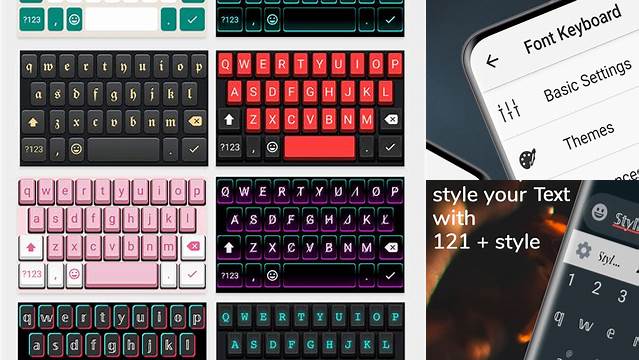
Fonts Keyboard: APK For Unique Writing Styles
Hey guys! Ever wanted to spice up your texts and social media posts with some cool and unique fonts? Well, you're in the right place! We're diving deep into the world of fonts keyboard apps, especially those APK files that let you get special fonts on your phone. Let’s get started and make your text game strong!
1. What is a Fonts Keyboard APK?
So, what exactly is a fonts keyboard APK? Simply put, it’s an application package file (APK) that you can install on your Android device to get a keyboard with a ton of different fonts. These apps let you type in various styles, from cursive and fancy to bold and quirky. Think of it as a magic wand for your words, allowing you to transform regular text into eye-catching masterpieces. You know, the kind of stuff that makes your Instagram captions pop and your WhatsApp messages stand out. The beauty of using a fonts keyboard lies in its versatility. You can use these special fonts across multiple platforms, whether it's social media, messaging apps, or even emails. It's like having a personal stylist for your text, ensuring that your words always make a statement. And let’s be honest, who doesn’t love a bit of flair? Especially when it's as easy as switching keyboards on your phone. Plus, with the right fonts keyboard, you can express your personality and mood in ways that regular text just can't capture. It’s all about adding that extra zing to your digital communication, making sure your messages not only convey information but also reflect your unique style. Whether you’re crafting a heartfelt birthday message or sharing a funny meme, a cool font can make all the difference.
2. Why Use Special Fonts?
Okay, so why bother with special fonts? Well, for starters, they add personality! Imagine your friend’s reaction when they see a birthday wish in a beautiful, handwritten-style font. It’s way more personal and memorable than plain old Arial, right? Using special fonts is like adding a splash of color to a black-and-white world. They grab attention and make your messages stand out in a sea of regular text. In a world where everyone is scrolling through endless feeds, a unique font can be the difference between your message being seen and being overlooked. Think about it – when you see a post with a cool, unusual font, you're more likely to stop and read it. It's human nature to be drawn to things that are visually appealing, and special fonts definitely fit the bill. But it's not just about aesthetics. Special fonts can also help you convey emotions and tone more effectively. A playful font can add a touch of humor to your messages, while an elegant script can make your words feel more sophisticated. It’s like choosing the right outfit for an occasion – the right font can set the mood and enhance the impact of your message. And let's not forget the fun factor! Experimenting with different fonts can be a creative outlet, allowing you to express yourself in new and exciting ways. Whether you're a social media guru, a budding artist, or just someone who loves to add a personal touch to their communications, special fonts are a fantastic tool to have in your digital arsenal.
3. Top Fonts Keyboard APKs Available
Alright, let's talk about some of the top fonts keyboard APKs out there. There are tons of options, but a few stand out from the crowd. Apps like Fonts Keyboard, Stylish Text, and FancyKey are super popular for a reason. They offer a wide range of fonts and are usually pretty user-friendly. When you're looking for the best fonts keyboard APK, you'll want to consider a few things. First, the variety of fonts. Does it have the styles you love? From elegant scripts to bold, modern designs, the more options, the better. You'll also want to think about how easy the app is to use. Nobody wants to struggle with a clunky keyboard, so look for an app that’s intuitive and seamless to integrate into your daily texting routine. Another crucial factor is compatibility. Make sure the fonts keyboard you choose works well with your device and the apps you use most often. Some keyboards might have issues with certain apps, so it's always good to do a little research or read reviews before you dive in. And of course, consider the security aspect. Only download APKs from reputable sources to avoid any potential malware or privacy issues. Once you’ve found a fonts keyboard APK that ticks all the boxes, you’re ready to start experimenting! Try out different fonts, see what works best for your style, and get creative with your messages. With the right app, you'll be turning heads with your text in no time.